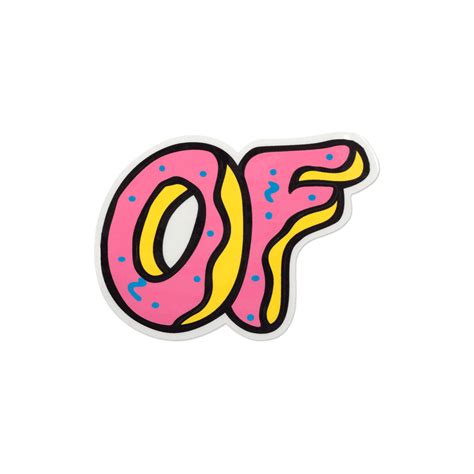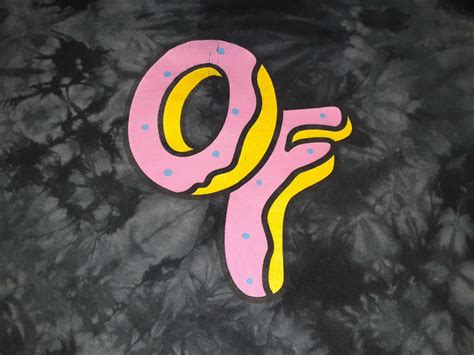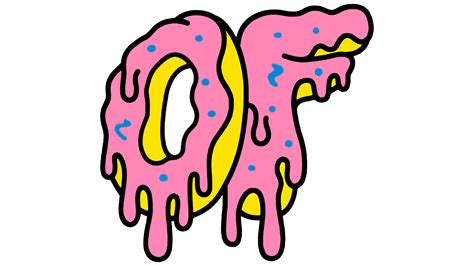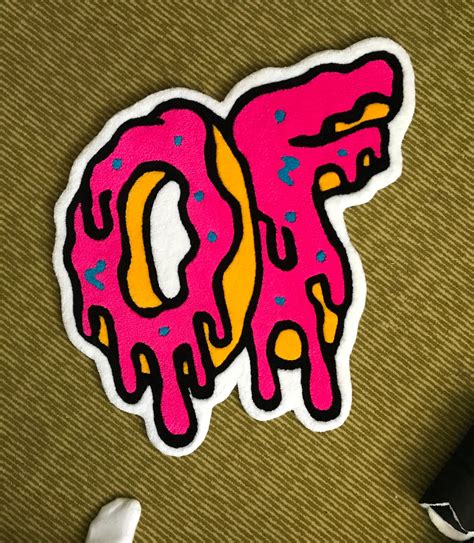
Odd Future Logo Font
The world of streetwear and hip-hop culture is rich with iconic symbols, but few have made as significant an impact as the Odd Future Logo. This distinctive emblem has become synonymous with the alternative hip-hop collective Odd Future Wolf Gang Kill Them All, often abbreviated as OFWGKTA. Founded in the late 2000s, Odd Future quickly rose to prominence with their unique blend of raw, unfiltered lyrics and a rebellious attitude that resonated with a generation of youth seeking an alternative to mainstream music.
The Origins of Odd Future
Odd Future was formed in Los Angeles, California, by a group of young artists who shared a common vision and a desire to break away from traditional norms. The collective included rappers, producers, and designers who collectively created a movement that transcended music. The Odd Future Logo became a visual representation of this movement, embodying the group's ethos of non-conformity and creativity.
The logo itself is a stylized, almost cartoonish design that features a wolf's head with a bandana wrapped around it. The wolf is a recurring theme in Odd Future's imagery, symbolizing strength, loyalty, and a wild, untamed spirit. The bandana adds a touch of street culture, reflecting the group's roots in the urban landscape of Los Angeles. The logo is often accompanied by the words "Odd Future" in bold, block letters, making it instantly recognizable.
The Odd Future Logo has evolved over the years, but its core elements have remained consistent. The initial design was simple and raw, reflecting the DIY ethos of the collective. As Odd Future gained popularity, the logo became more polished, but it never lost its edgy, streetwise appeal. The evolution of the logo mirrors the growth and maturation of the collective, as its members transitioned from underground artists to mainstream stars.
One of the most notable aspects of the Odd Future Logo is its versatility. It has been adapted and reimagined in various forms, from t-shirts and hoodies to skateboards and accessories. This versatility has helped to cement the logo's status as a cultural icon, making it a staple in the wardrobes of fans and fashion enthusiasts alike.
The Impact of the Odd Future Logo on Streetwear
The Odd Future Logo has had a profound impact on the streetwear industry. It has inspired countless designers and brands, who have sought to capture the same raw, authentic energy that Odd Future embodies. The logo's distinctive design and bold colors have made it a favorite among streetwear enthusiasts, who appreciate its ability to convey a sense of rebellion and individuality.
Odd Future's influence on streetwear can be seen in the rise of other alternative hip-hop collectives and brands that have emerged in recent years. These groups have drawn inspiration from Odd Future's approach to music and fashion, creating their own unique identities and logos that resonate with a similar audience. The Odd Future Logo has become a benchmark for what a successful streetwear brand should look like, setting a high standard for creativity and authenticity.
The Odd Future Logo is more than just a fashion statement; it is a symbol of a cultural movement. It represents a generation of young people who rejected the status quo and sought to create their own paths. The logo's association with Odd Future's music and ethos has made it a powerful symbol of rebellion and self-expression.
Odd Future's music often addresses themes of mental health, social issues, and personal struggles, making the collective a voice for the marginalized and misunderstood. The Odd Future Logo serves as a visual representation of these themes, providing a sense of belonging and identity for fans who resonate with Odd Future's message. The logo has become a rallying cry for those who feel disenfranchised by mainstream culture, offering a sense of community and solidarity.
The Odd Future Logo is a masterclass in minimalist design. Its simplicity and boldness make it instantly recognizable, even from a distance. The use of a wolf as the central motif is a clever choice, as wolves are often associated with strength, loyalty, and a wild, untamed spirit. These qualities align perfectly with Odd Future's ethos of non-conformity and creativity.
The bandana wrapped around the wolf's head adds a touch of street culture, reflecting the group's roots in the urban landscape of Los Angeles. The bold, block letters of the words "Odd Future" further emphasize the logo's streetwise appeal, making it a powerful visual statement.
The color scheme of the Odd Future Logo is also noteworthy. The use of bright, vibrant colors contrasts with the dark, moody tones often associated with streetwear. This contrast creates a striking visual impact, making the logo stand out against a crowded field of competitors.
The Merchandise and Collaborations
As Odd Future continues to evolve and grow, the Odd Future Logo remains a constant, a visual representation of the collective's ethos and values. It serves as a reminder of the power of creativity and non-conformity, inspiring new generations of artists and designers to push the boundaries of what is possible.